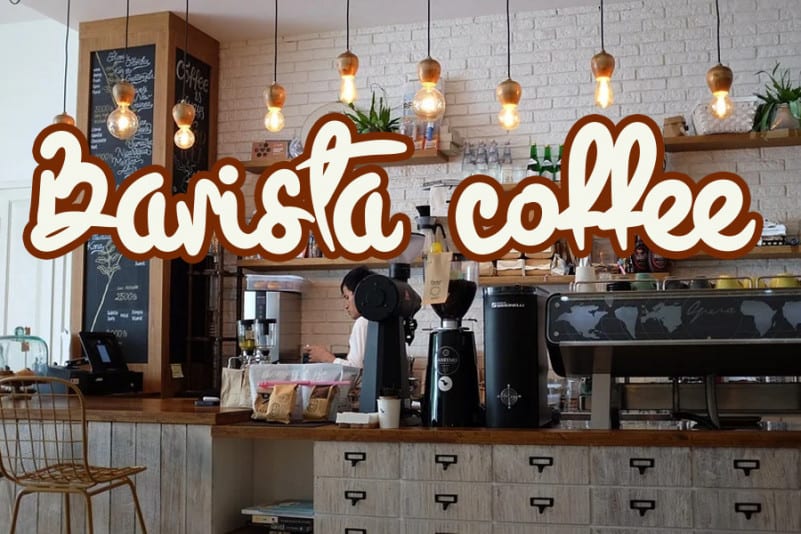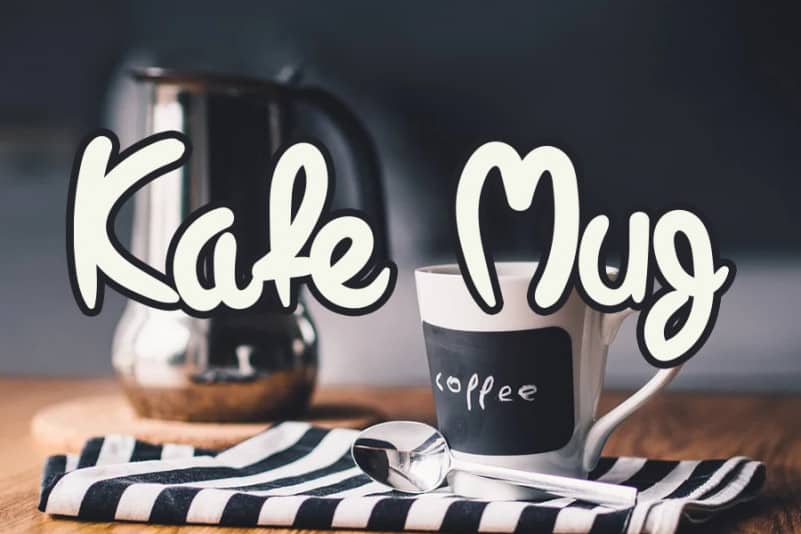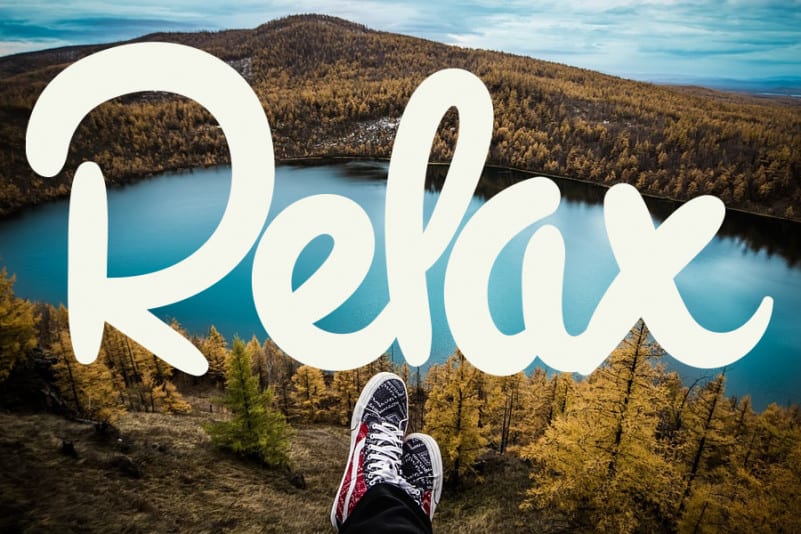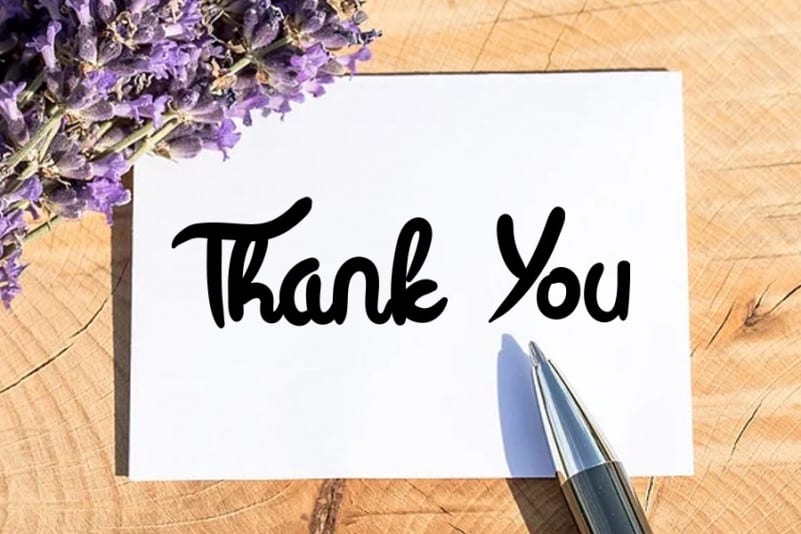
Talk To Me Display Font
Talk To Me Display Font is a sweet, all round and smooth handwritten font. Warm, romantic and jolly, this font will turn each of your project ideas into real works of art. Have fun with this beautiful font and explore its endless variations.
Talk To Me Display Font is a very talented product for you to use,
Latest letters that can be used for various products, invitations, wall hangings, weddings, and more.